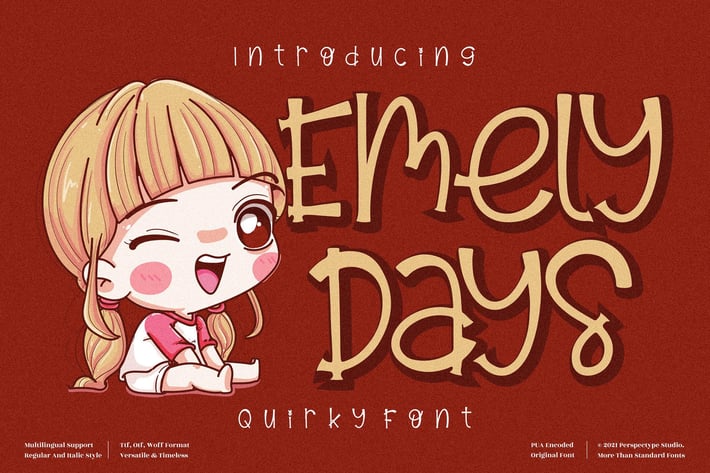
Emely Days Quirky Font
Emely Days is a playful and quirky display font designed to bring joy, warmth, and childlike charm to your creative projects. With its hand-drawn character shapes, uneven strokes, and friendly personality, this font instantly creates a fun and expressive visual mood. Ideal for designers seeking a cute, whimsical, and storytelling feel, Emely Days works beautifully for kids-related designs, branding, and cheerful digital content.
Hand-drawn quirky letterforms
Playful and expressive character shapes
Unique irregular strokes for a natural doodle feel
Perfect for fun, cute, and character-driven designs
Kids’ branding & product packaging
Storybooks, comics, and character illustrations
Cute social media posts
Fun posters and promotional materials
Birthday invitations & greeting cards
DIY crafts and playful design projects
Merch, stickers, and themed apparel
Cute, quirky, and full of personality — Emely Days brings joyful charm to every design you create.